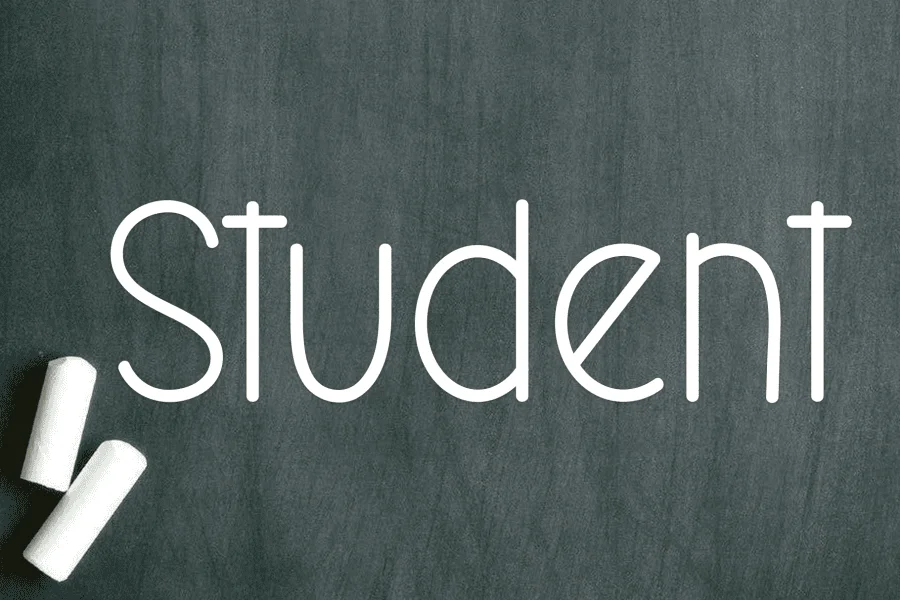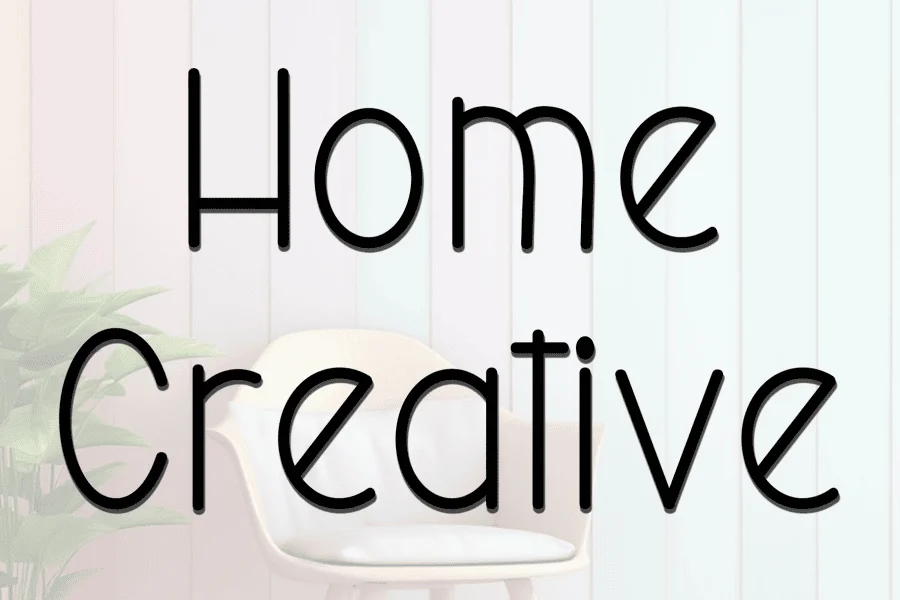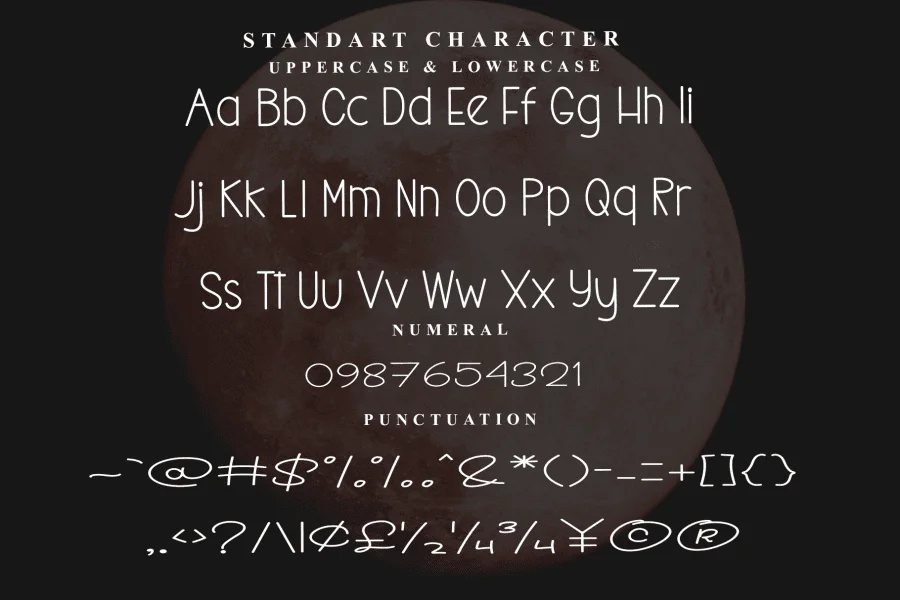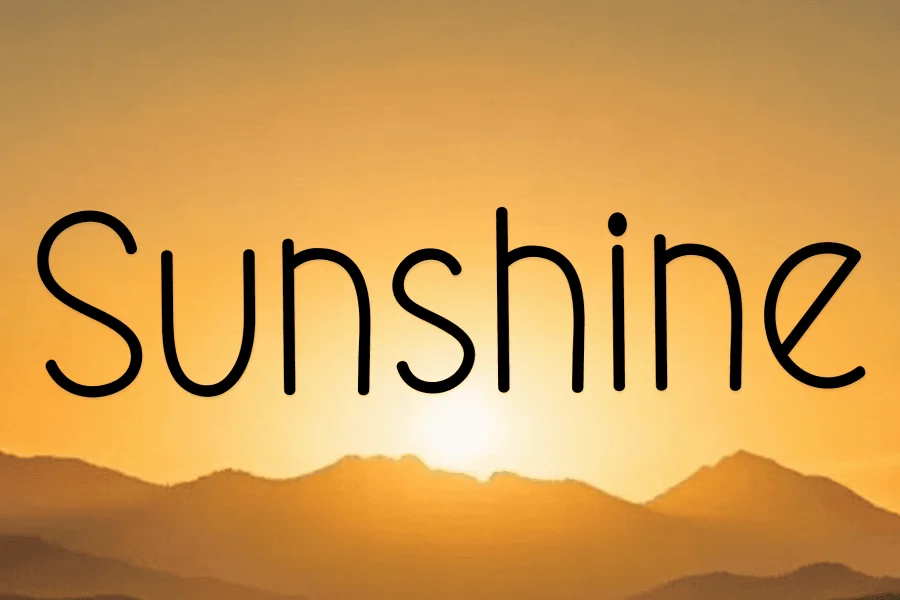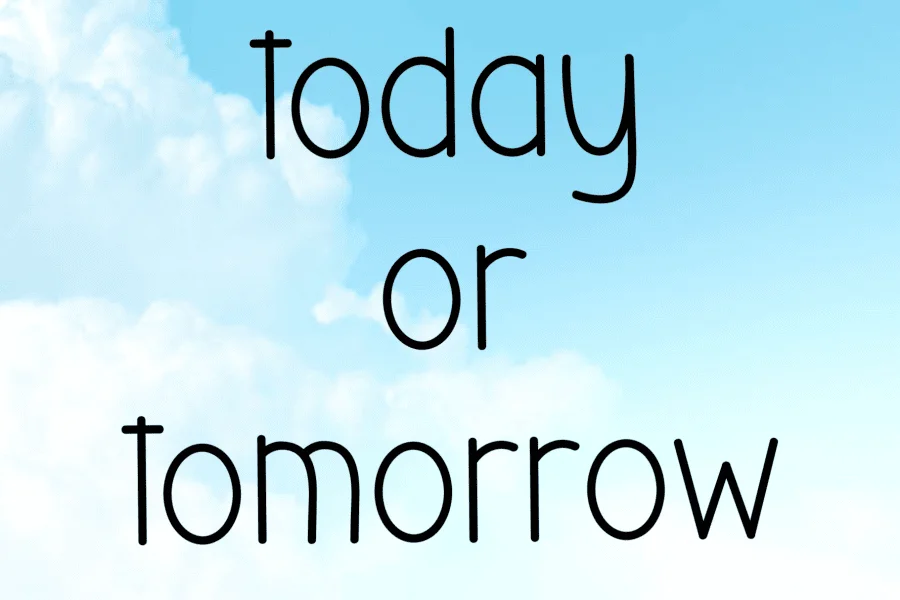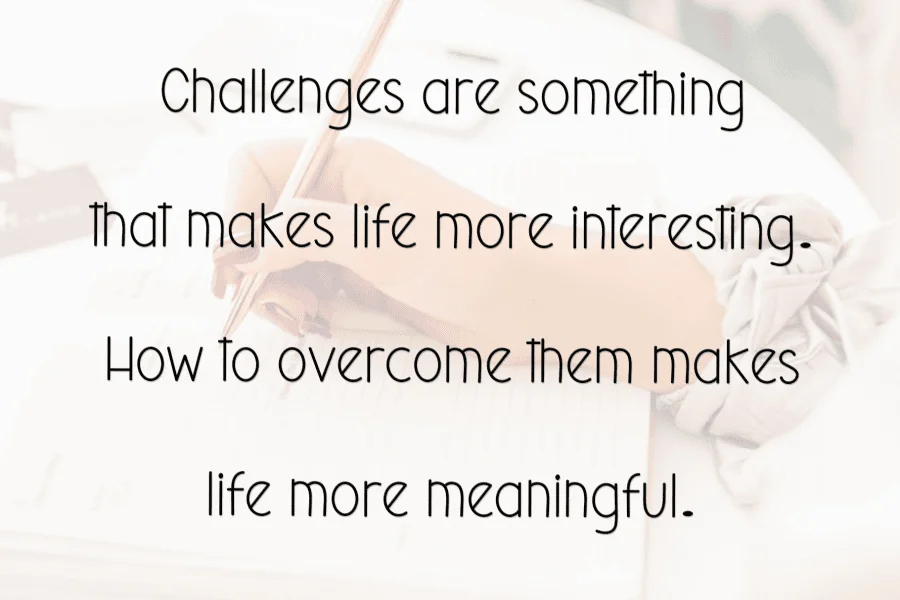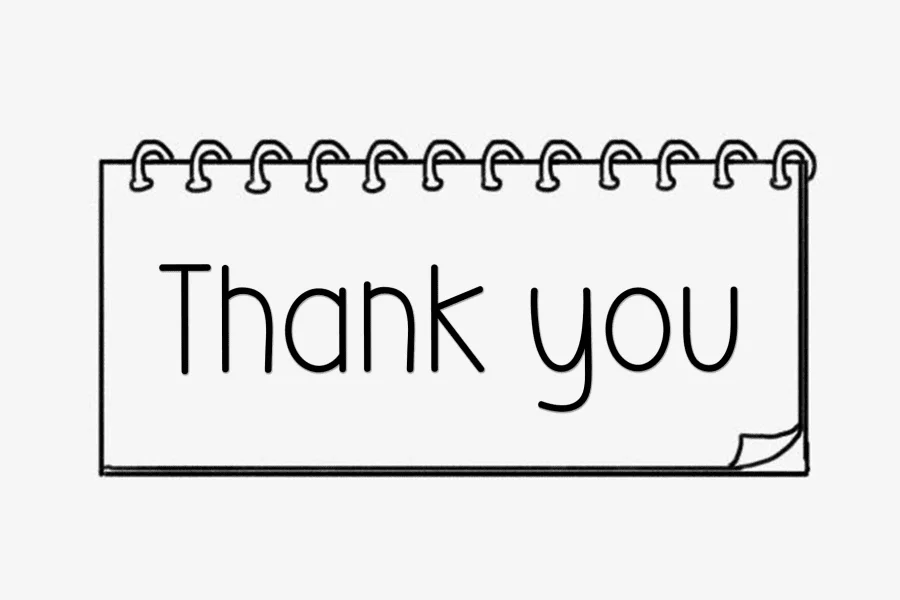
Football Wonderful is a modern handmade display typeface characterized by its tall, condensed proportions and friendly, casual tone. Combining the clean structure of a sans-serif with the organic warmth of handwriting, it features uniform monoline strokes, generous curves, and an airy, open rhythm. The vertical elongation of the letterforms gives it a distinctive, playful presence while maintaining a neat and legible texture.
This typeface is well-suited for creative branding, whimsical packaging, and educational materials. Its lighthearted yet structured appearance makes it ideal for classroom displays, motivational quotes, lifestyle blog headers, and casual social media graphics where a touch of personal warmth is desired.